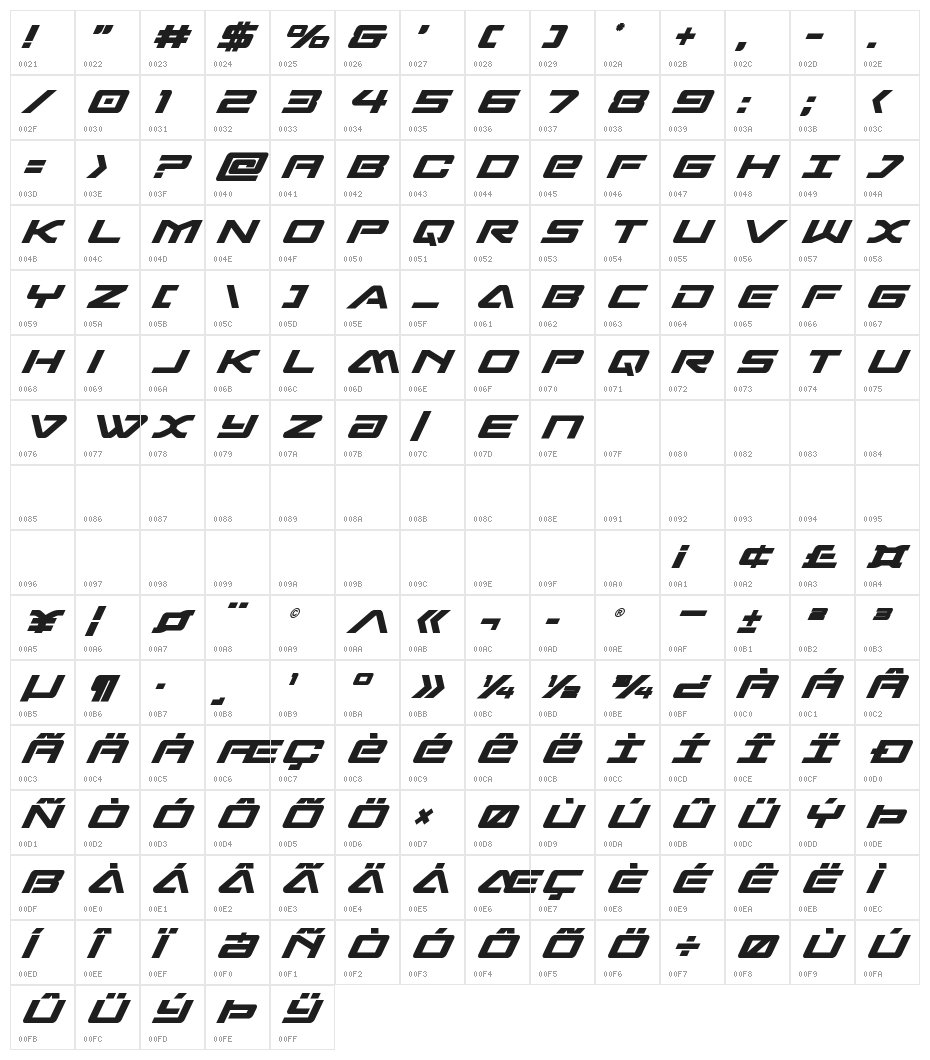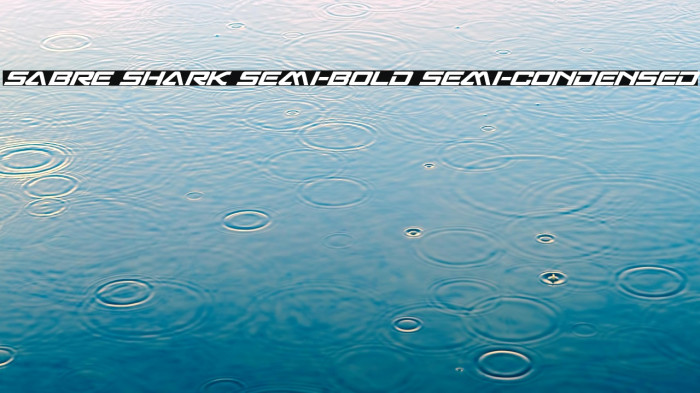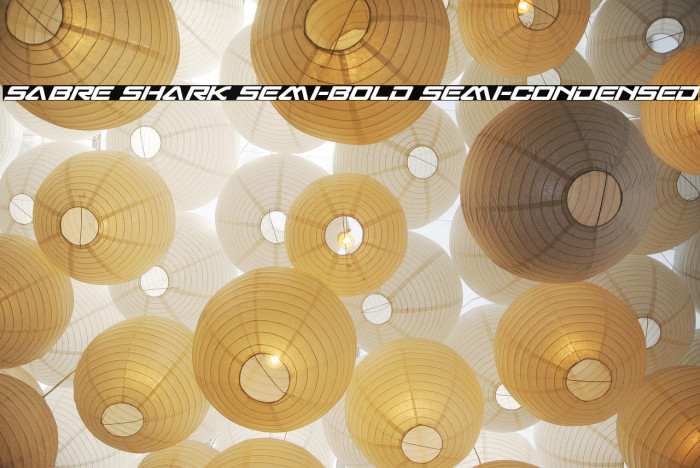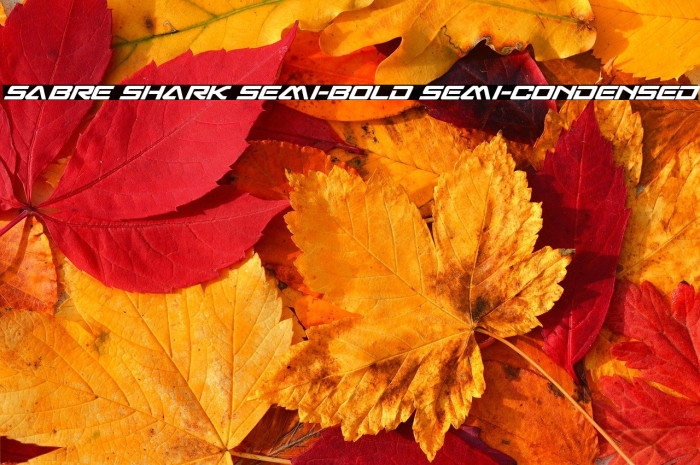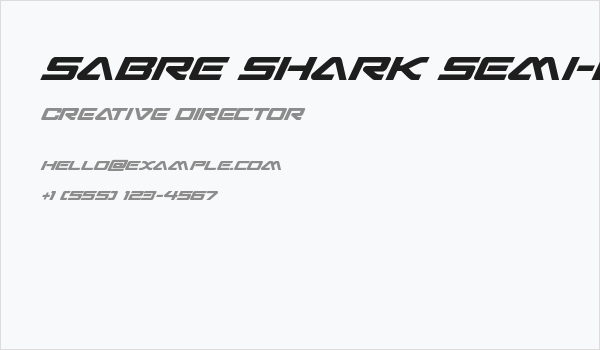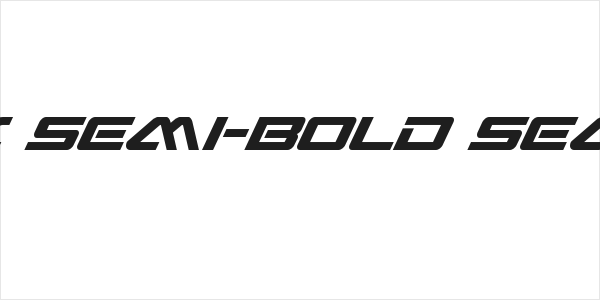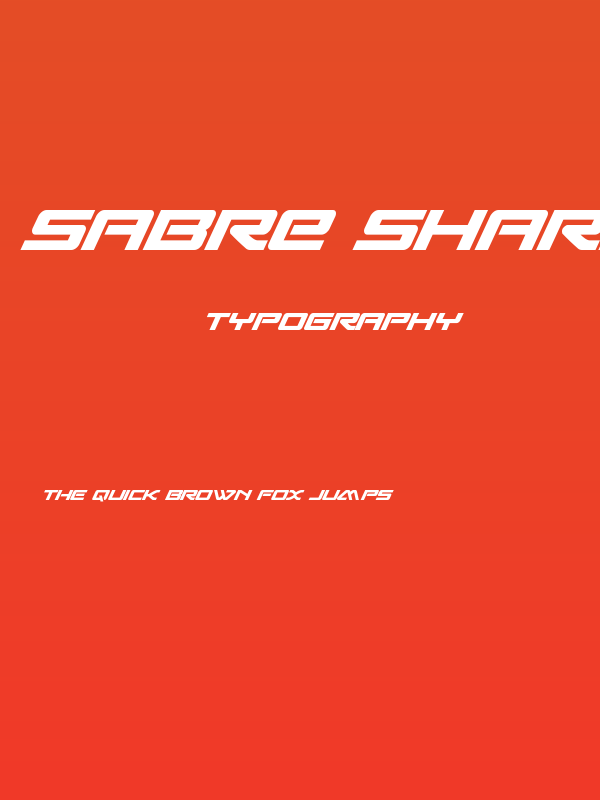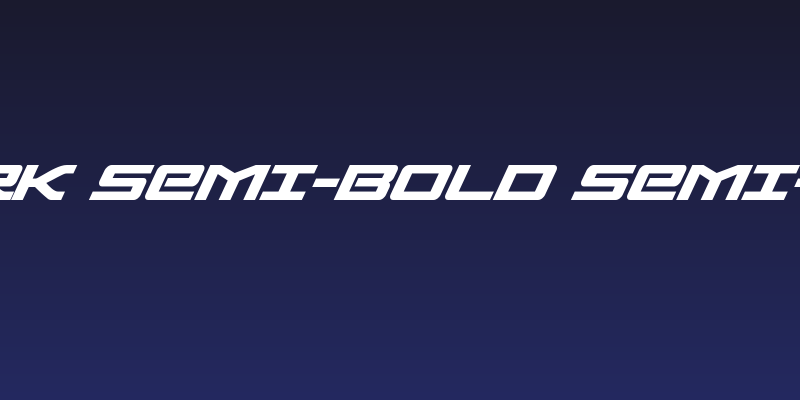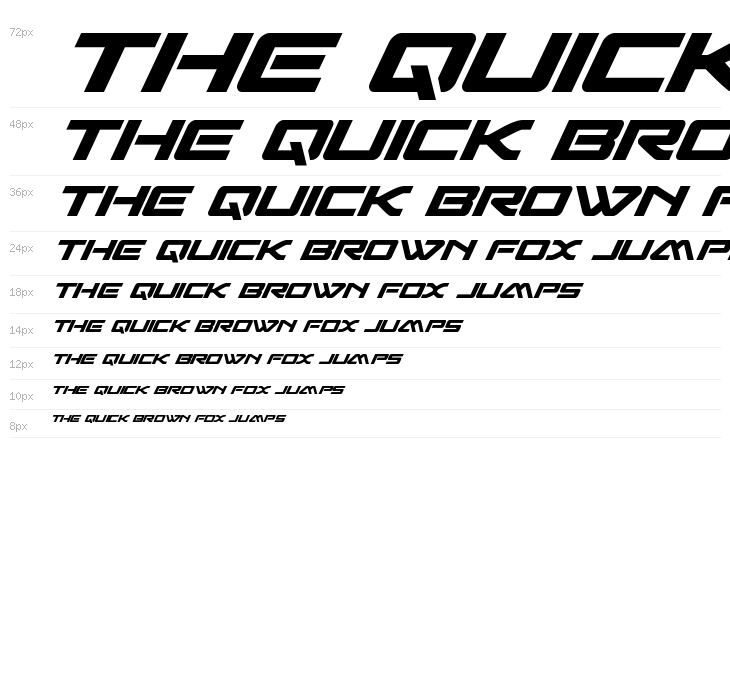
Sabre Shark Semi-Bold Semi-Condensed Font
Sabre Shark Semi-Bold Semi-Condensed Description
This font showcases a bold and dynamic style with a futuristic and angular design. The characters are semi-condensed, giving them a compact appearance while maintaining readability. The sharp edges and geometric shapes contribute to a modern and sleek aesthetic. The uppercase and lowercase letters are consistent in style, with a slight slant that adds a sense of motion and energy. The numbers and special characters are designed to match the overall theme, ensuring uniformity across all elements. This font is ideal for projects that require a strong and impactful visual presence.